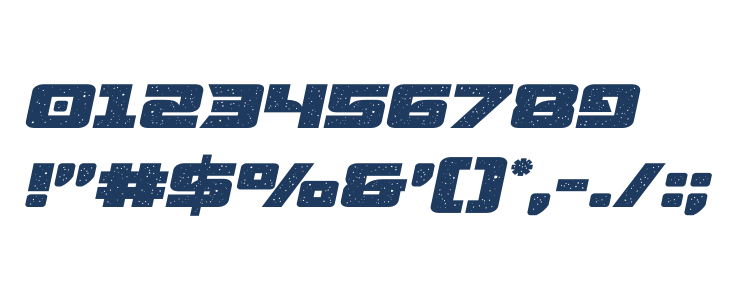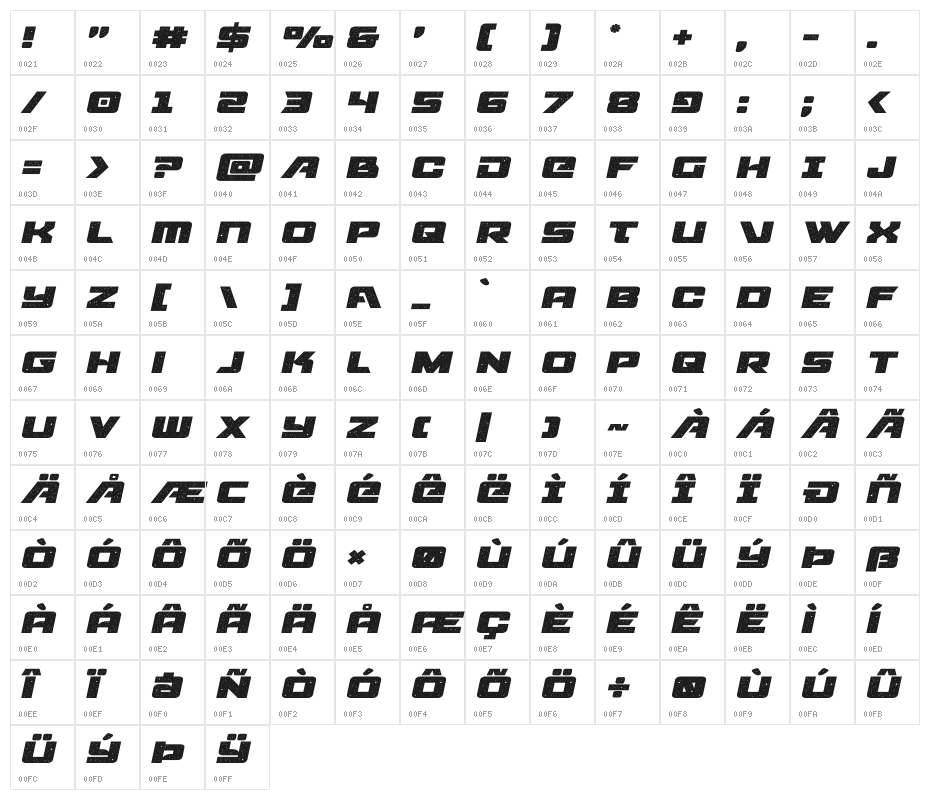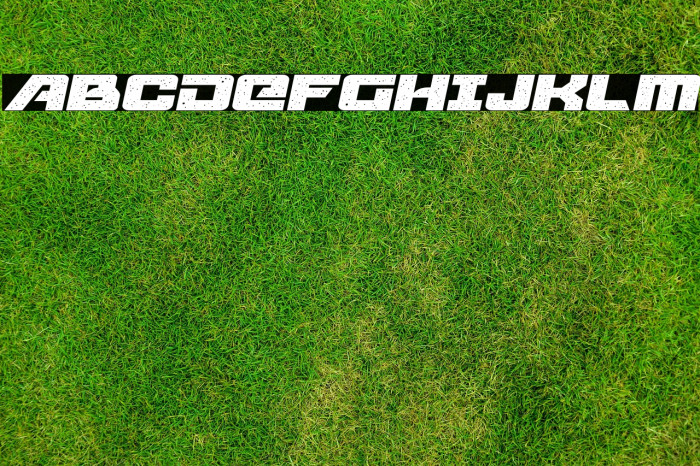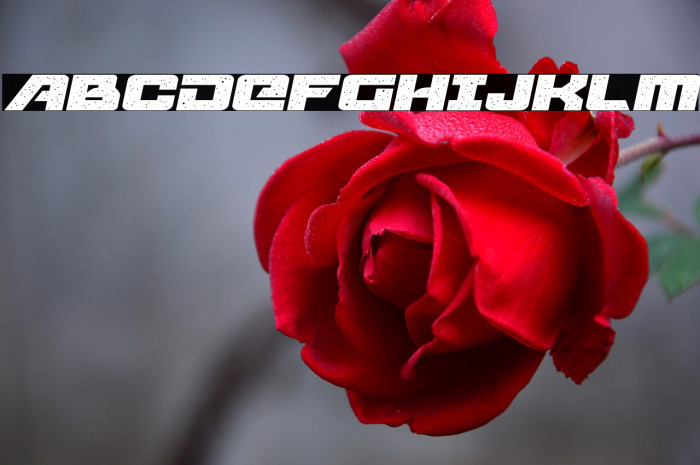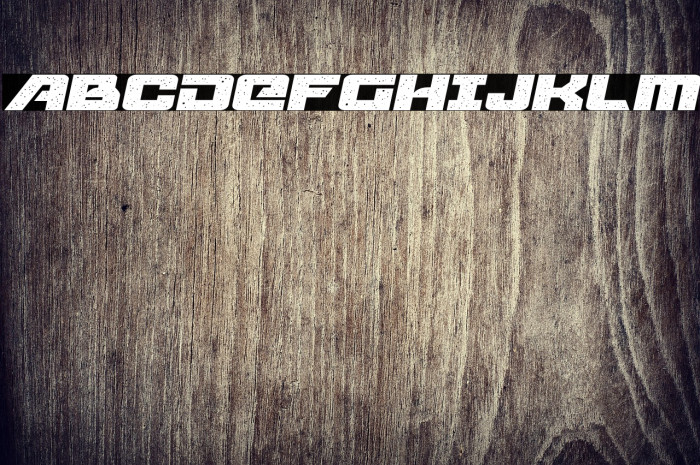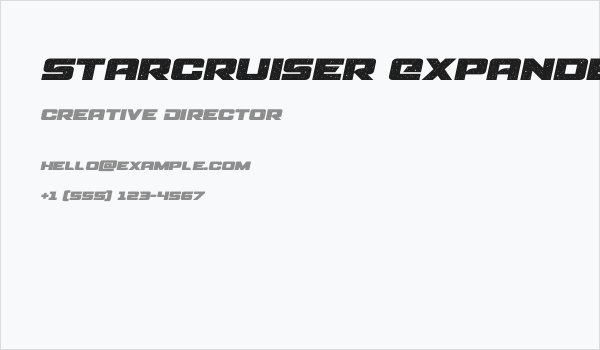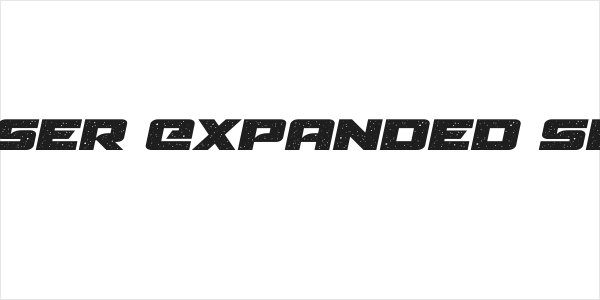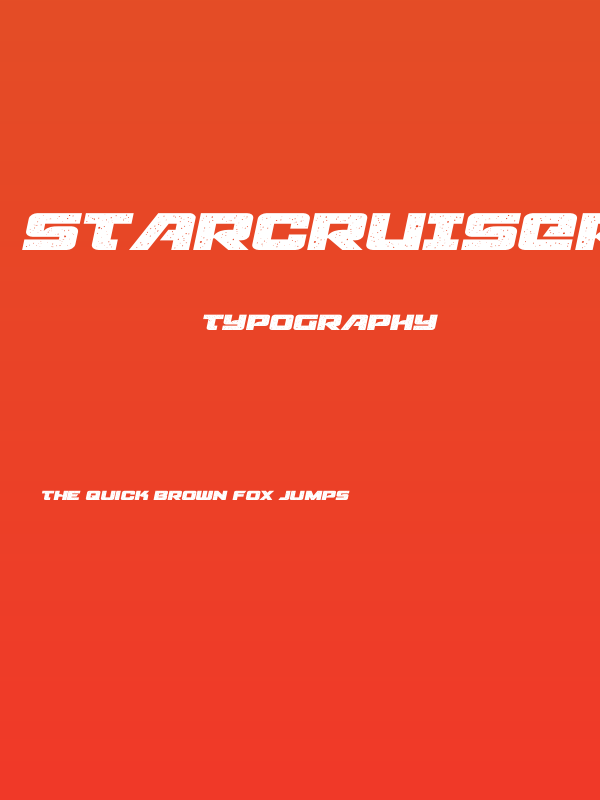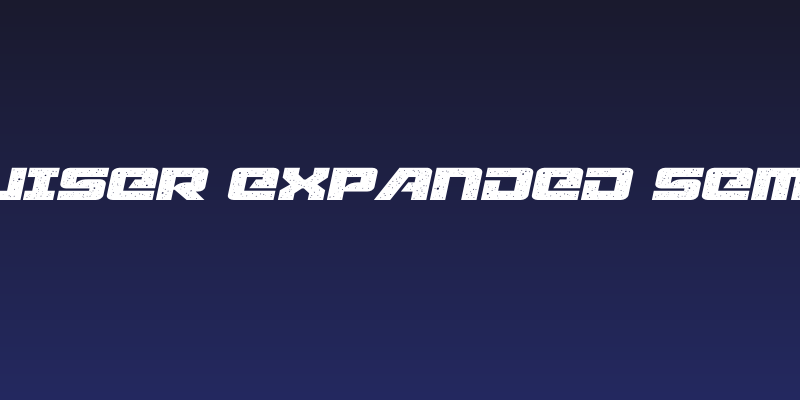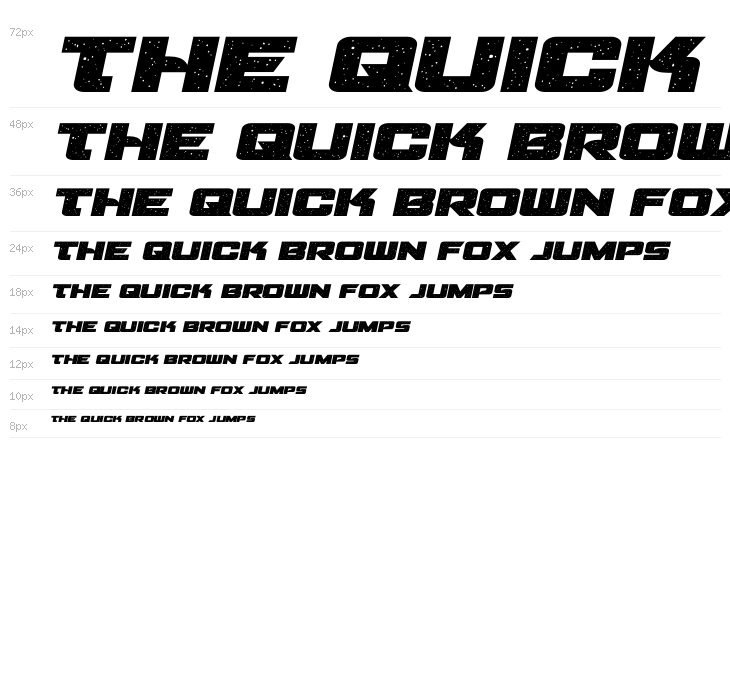
Starcruiser Expanded Semi-Italic Font
Starcruiser Expanded Semi-Italic Description
This font features a futuristic and bold design, characterized by its expanded and semi-italic style. The letters are wide and angular, with a distinct geometric appearance that suggests a sense of speed and modernity. The font includes a unique texture, resembling a starry or cosmic pattern, adding a decorative element that enhances its visual appeal. The uppercase and lowercase letters maintain a consistent style, with numbers and special characters designed to match the overall aesthetic. This font is ideal for projects that require a dynamic and space-themed look.
| Overall Style | Futuristic, Decorative |
| Proposed Projects | Ideal for sci-fi movie posters, video game titles, space-themed event branding, and futuristic product packaging. |